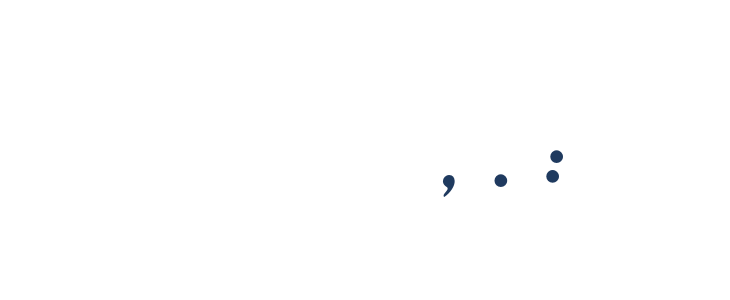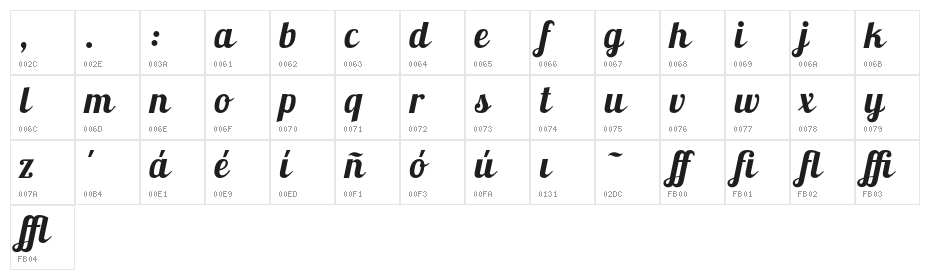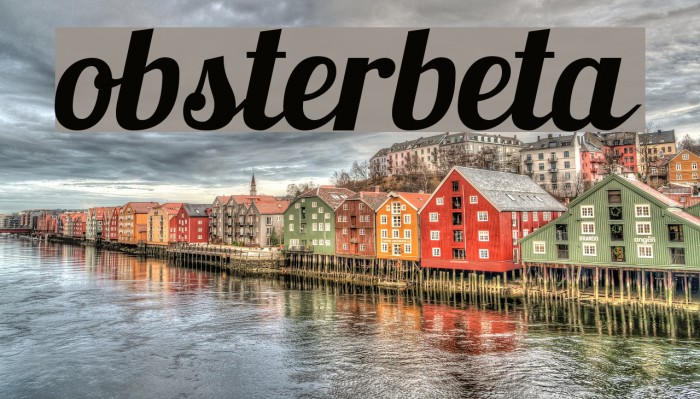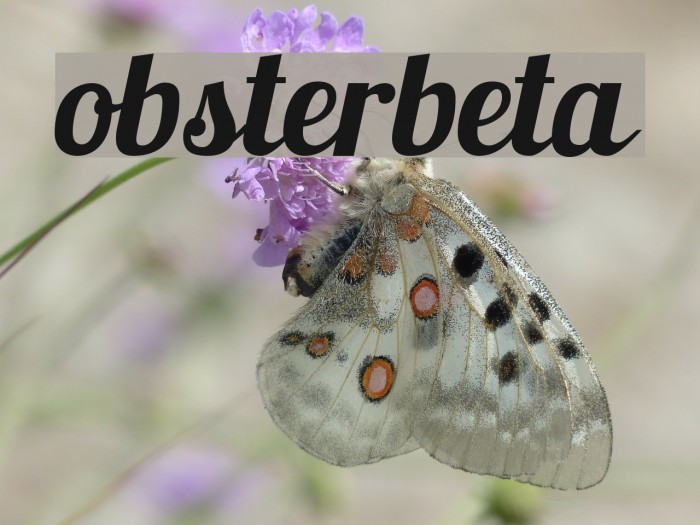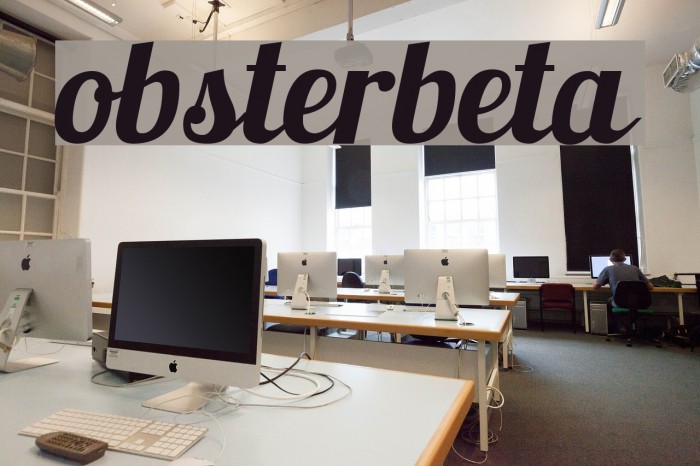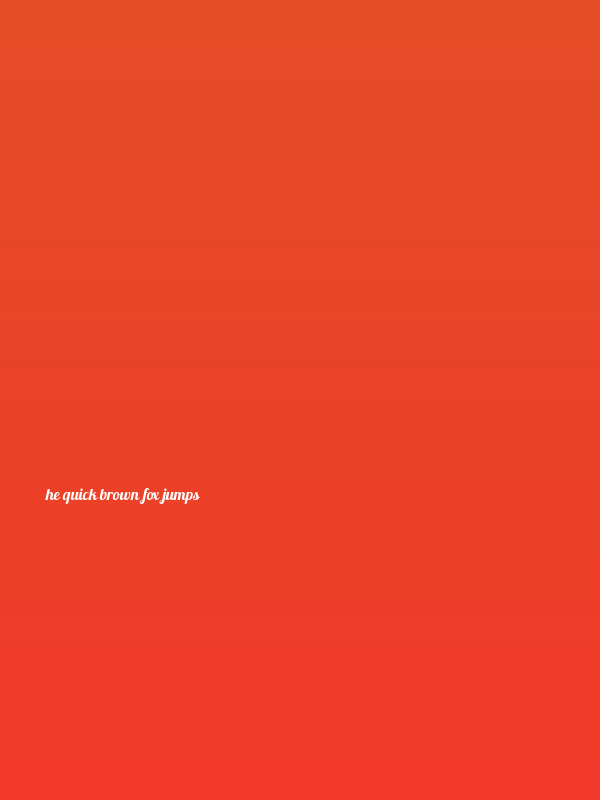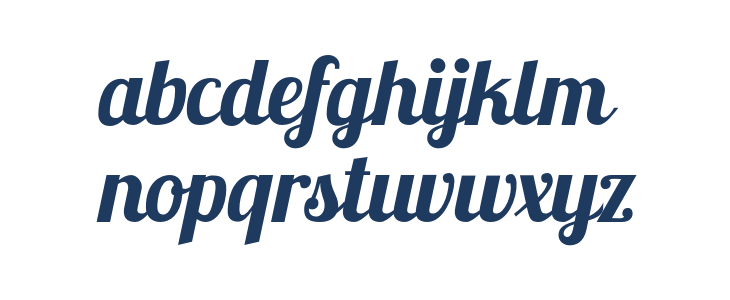
Lobsterbeta7 Font
Lobsterbeta7 Description
This font is a bold, script-style typeface with a flowing, connected design. It features a strong contrast between thick and thin strokes, giving it a dynamic and elegant appearance. The characters are slightly slanted, enhancing the cursive feel, while the loops and curves add a touch of sophistication. The font maintains a consistent baseline, ensuring readability despite its decorative nature. It is well-suited for creating eye-catching headlines or logos that require a touch of flair and personality.
Proposed ProjectsIdeal for branding, logo design, wedding invitations, and decorative headlines.